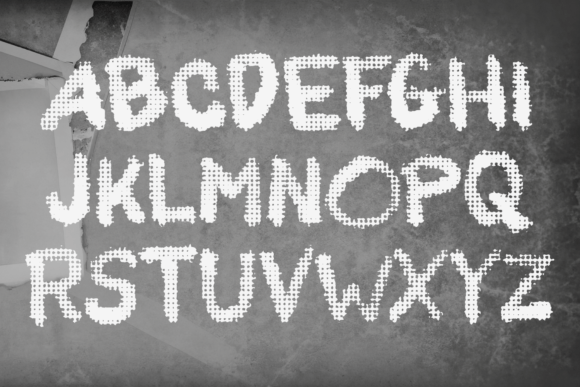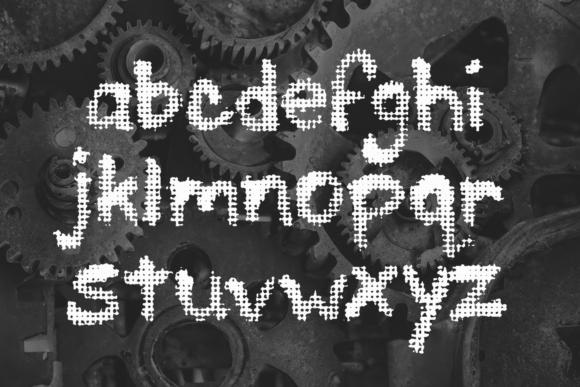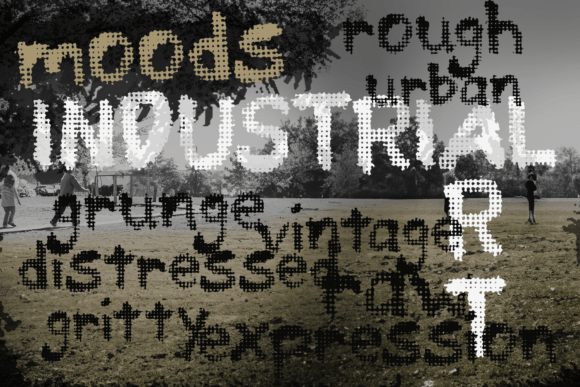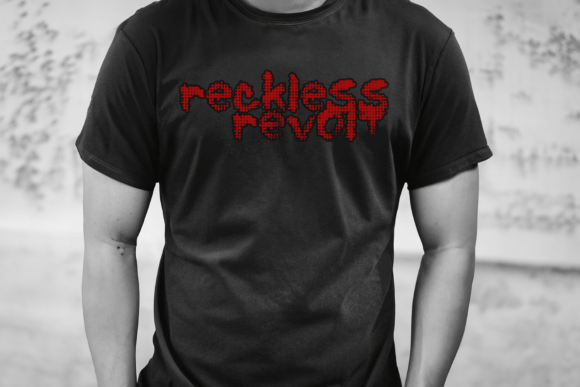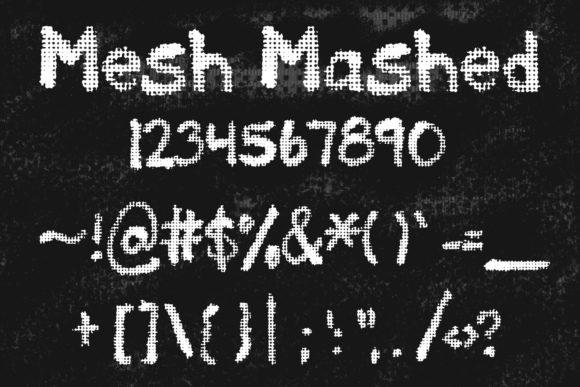
Introduction to Mesh Mashed Font Font
Fonts play a crucial role in design, and the Mesh Mashed Font font is a typeface that brings both character and versatility to any project. Whether you’re working on a branding project, a website, or a print design, the Mesh Mashed Font font offers a unique style that can elevate your work.
Mesh Mashed β Large Print Grunge Font Elevate your design game with βMesh Mashed,β a captivating large print font that fuses mesh-like intricacies with grunge aesthetics.
Perfectly suited for graphic designers, illustrators, artists, and creative professionals, βMesh Mashedβ adds a bold, raw edge to your projects, making them impossible to ignore .
Key Features of Mesh Mashed Font Font
Why Choose Mesh Mashed Font Font?
The Mesh Mashed Font font is more than just a typeface β it’s a design tool that helps you communicate your message with style and clarity. Its unique character set and versatile design make it suitable for a wide range of applications, from elegant invitations to bold headlines.
With its carefully crafted letterforms and balanced proportions, the Mesh Mashed Font font ensures readability and visual appeal across all mediums.
What makes Mesh Mashed Font font special?
The Mesh Mashed Font font stands out with its unique design, exceptional readability, and versatility across various design applications.